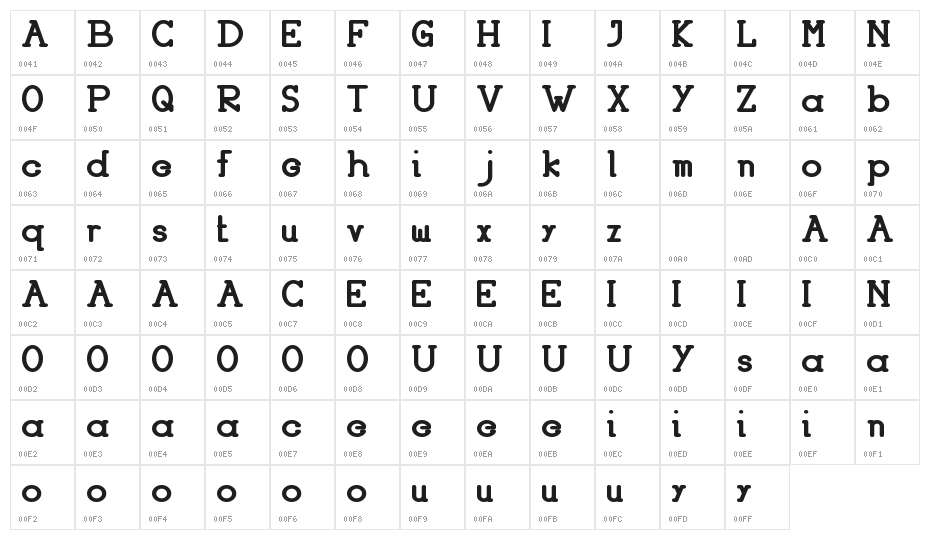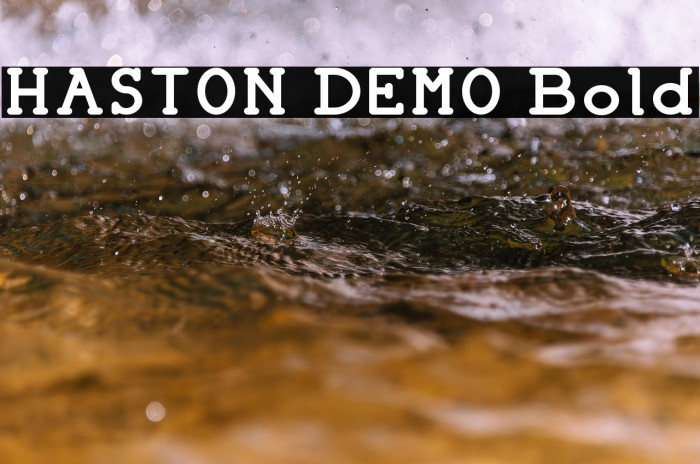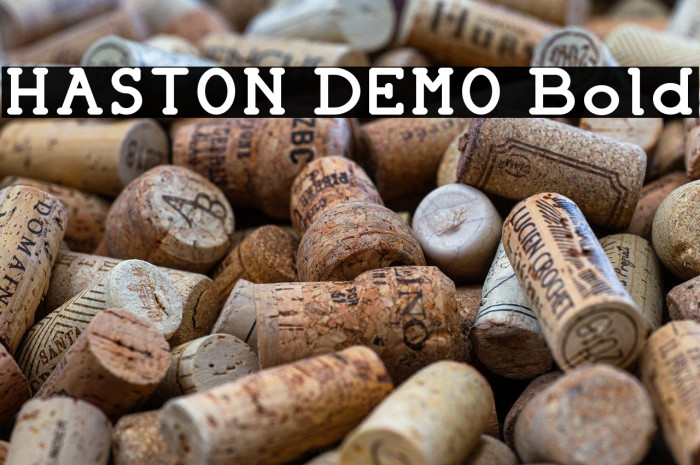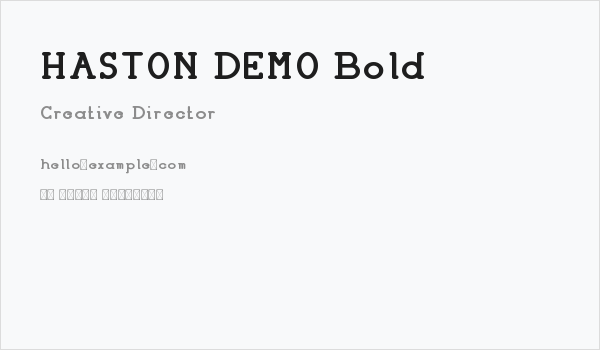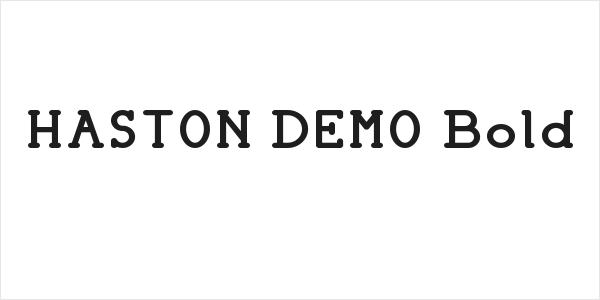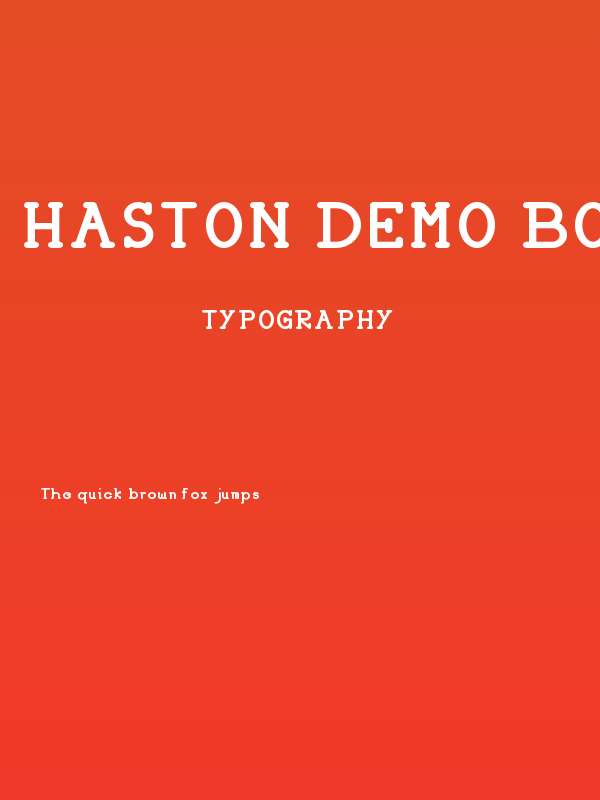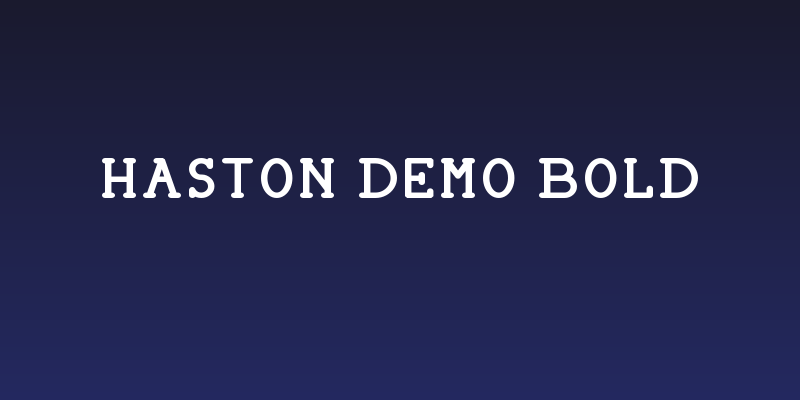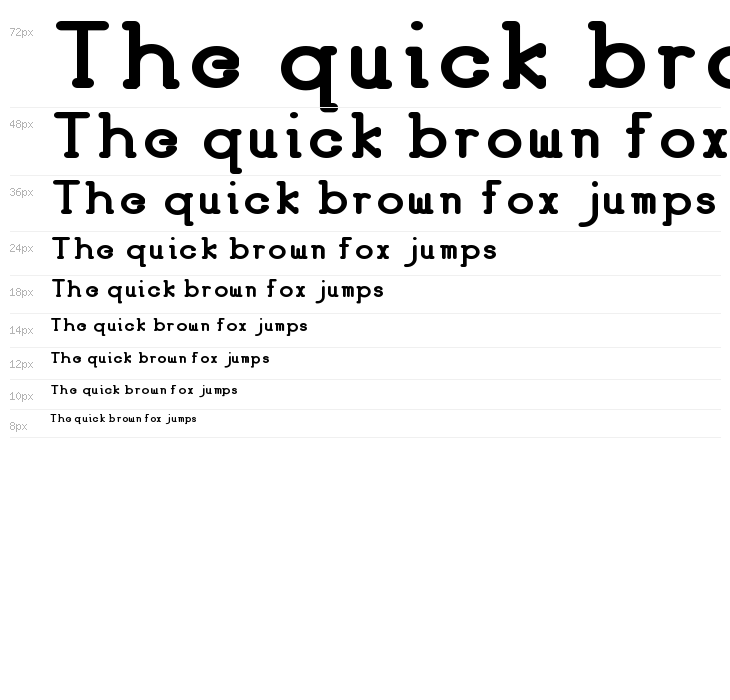
HASTON DEMO Bold Font
HASTON DEMO Bold Description
This font features a bold, playful style with rounded edges and a slightly condensed form. The characters exhibit a unique blend of modern and retro elements, making it stand out with its distinctive appearance. The uppercase letters are uniform in height, while the lowercase letters maintain a consistent baseline, providing a balanced look. The numbers and special characters are crafted to match the overall aesthetic, ensuring a cohesive design. This font's boldness and character make it suitable for eye-catching designs.